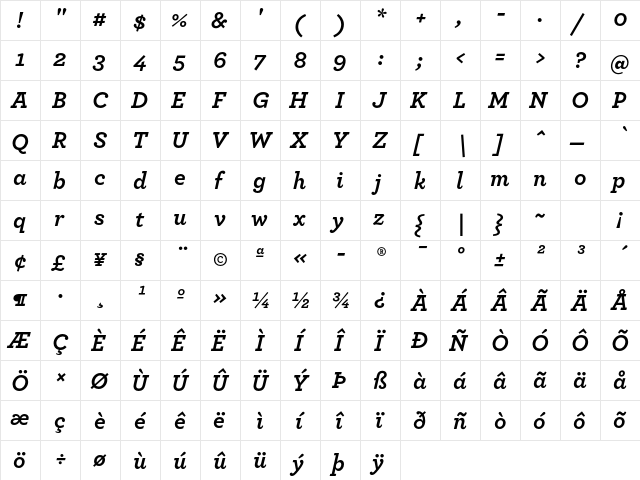
ArcherPro Bold Italic
Design Context for ArcherPro Typeface
ArcherPro is a composed and adaptable typeface that performs quietly and consistently across a wide range of design contexts. The slanted form adds forward momentum and visual energy. The heavy weight commands attention and anchors typographic hierarchies.
Pro Tip: Try ArcherPro for annotation and caption copy alongside an upright companion — the contrast in angle creates a dynamic but ordered typographic system.